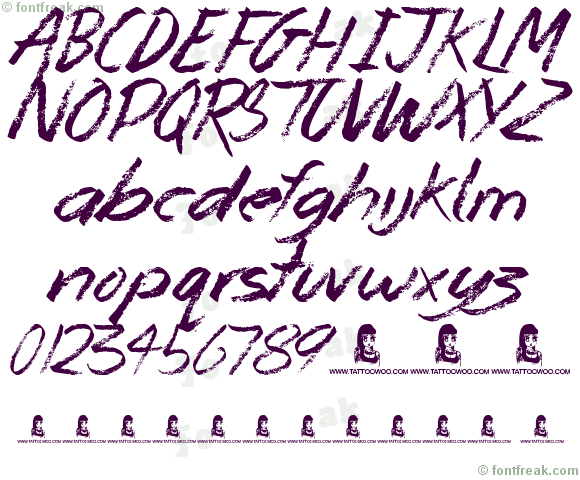
Monster Unleashed
The Monster Unleashed font by Jonathan S. Harris is a striking display typeface that captures attention with its unique, edgy design. This font falls into the decorative category, showcasing a bold, expressive style that is perfect for making a statement. With its rough, textured strokes and uneven edges, the font creates a sense of raw energy and dynamism, making it ideal for projects that require a touch of grit and personality. The stroke weight varies throughout the letters, contributing to its organic feel, while the spacing offers a balanced readability that complements its dramatic flair.
Best suited for a range of creative applications, the Monster Unleashed font is perfect for designing posters for music events, edgy branding for tattoo shops, or even bold headlines in magazines and zines. It can also shine in promotional materials for Halloween-themed events or horror film festivals, adding an atmospheric quality that enhances the overall design. Small business owners looking to create a memorable logo or content creators aiming for eye-catching social media graphics will find this font particularly appealing.
The target audience for this font includes graphic designers, small business owners, and content creators who appreciate distinctive typography. Whether you're crafting an artist's portfolio or designing merchandise, this font offers versatility while still delivering a unique visual punch.
What sets the Monster Unleashed font apart is its ability to convey emotion and attitude through its design. It stands out not only for its aesthetic appeal but also for its capacity to enhance a project's overall narrative. With the Monster Unleashed font free download available, users can easily incorporate this striking typeface into their next creative endeavor, bringing their ideas to life with an energetic flair.